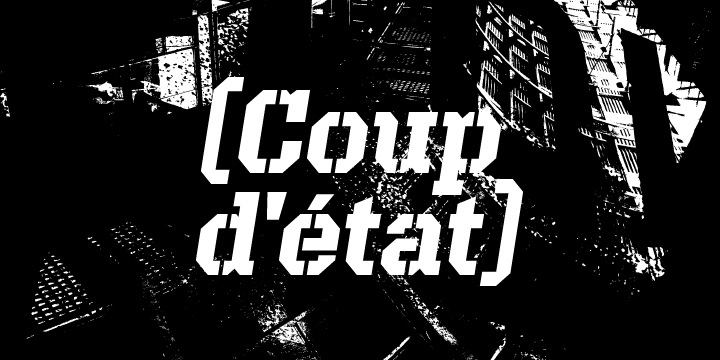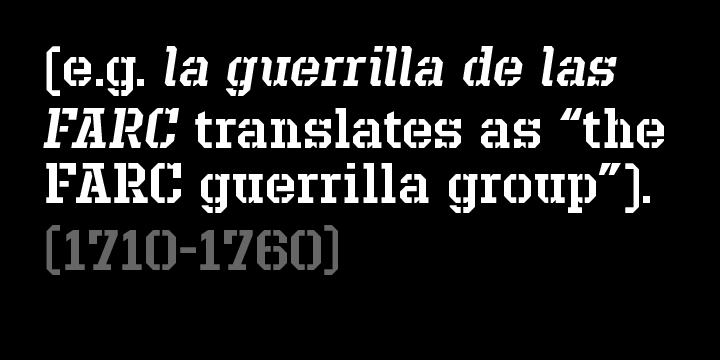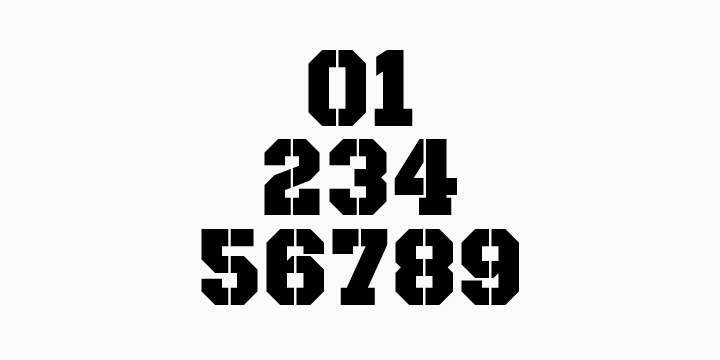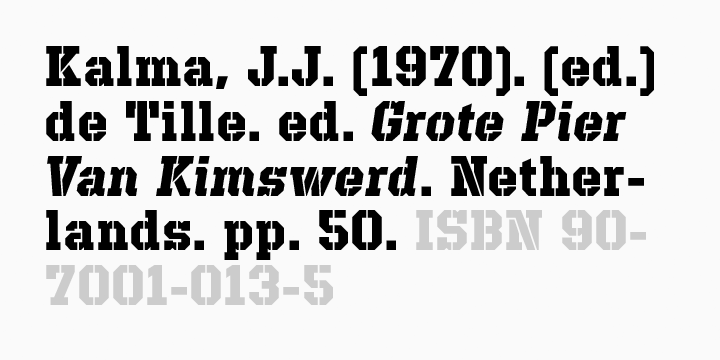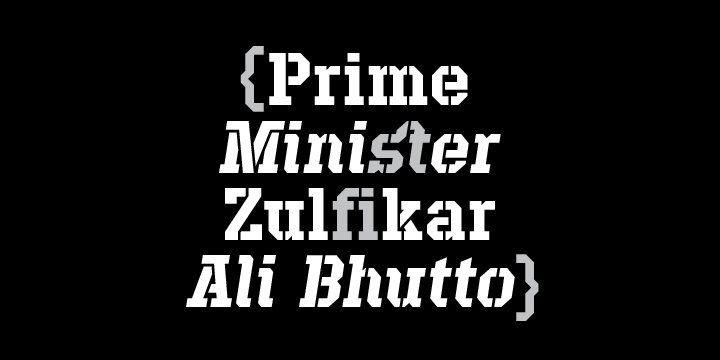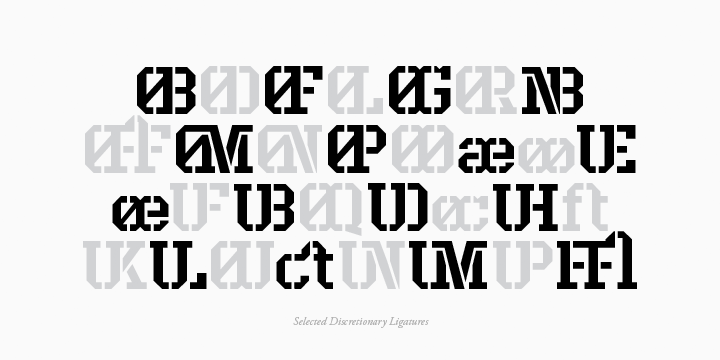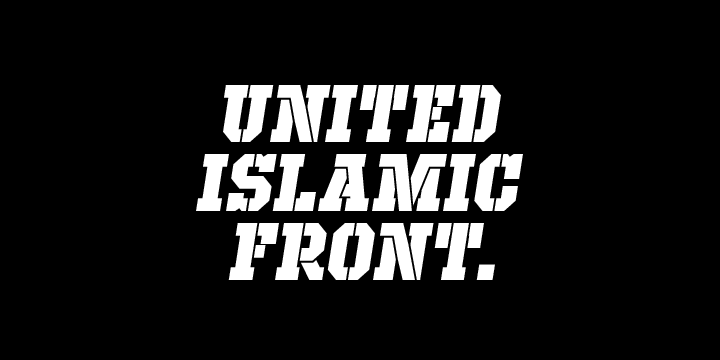
Defense
Defense is an unyielding rectangular slab-serif stencil face designed with consistently balanced letterforms and a refined finish. It's extremely angular geometric form commands attention in display settings, yet is also legible in short text blocks.
Features include:
• Standard Ligatures set including 'f' ligatures (fi, fl, ff, fh, fj, ffl, ffi, ffj)
• Discretionary Ligatures set including (ft, rt, ae, oe, st, ft, ct, oc, oo, ry, AE, OE, AL, TH, HE, AK, AN, TT, HD, AM, AP, AR, NF, NE, NH, NL, NB, FL, ND, FE, AB, OB, OD, OF, OG, OH, OK, OL, OM, ON, OO, OP, OQ, OR, OU, AH, UE, UF, UB, UD, UH, UK, UL, UM, UN, UP, UR, UU, MP, XY, YX, KY, WY, VY, AF, FF, FI)
• Alternate characters (O, o, S, s, a, h circumflex, @,